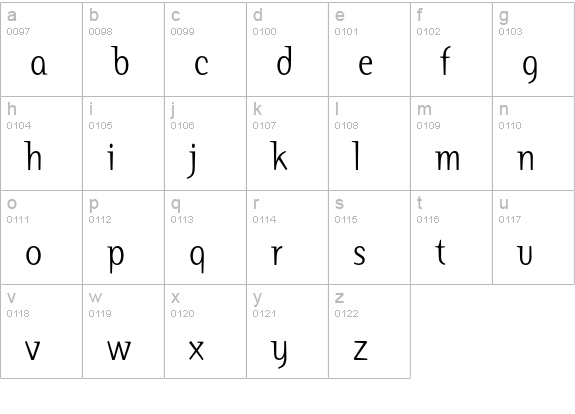
NatWest-Light is a refined, elegant variant in the NatWest typeface family \xE2\x80\x94 well suited to elegant body text, refined sub-headings, and luxury branding.
NatWest-Light font is a modern and elegant typeface designed to bring a touch of sophistication to your projects. With its sleek lines and clean design, this font is perfect for both digital and print applications. The light weight of the font gives it a delicate and airy feel, making it ideal for titles, headings, and other display purposes. Best of all, NatWest-Light font is available for free download at FontsMarket.com. So, you can easily add this stylish font to your collection without any cost. Whether you're working on a branding project, a website design, or any other creative endeavor, NatWest-Light font will surely elevate your work with its timeless appeal. Download it now and start creating stunning designs with this beautiful typeface.